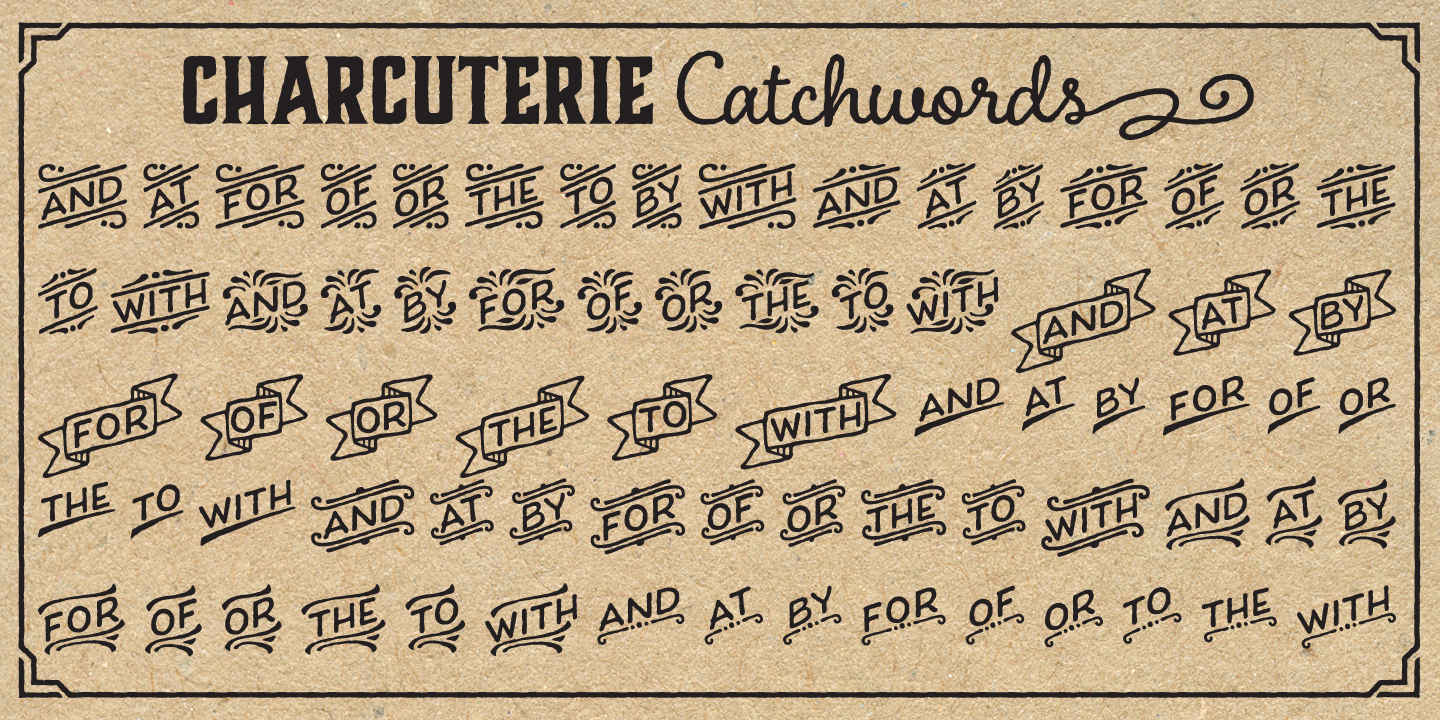
Charcuterie Catchwords
Charcuterie Catchwords is a dingbat font published by Laura Worthington.
A large and rare undertaking, Charcuterie is a family of ten distinct yet related typefaces, many of which have their own font families, and three decorative/ornamental typefaces.
While most of the Charcuterie typefaces are outfitted with a standard character set, Charcuterie Engraved features 135 swash alternates and Charcuterie Cursive boasts 275.
Charcuterie Frames offers a broad and endless approach to creating frames of any width, height and style.
Featuring 60 corner elements and 20 top, bottom and side pieces along with a detailed User’s Guide on how to construct the frames.
Charcuterie Catchwords features nine different styles for a total of 82 glyphs.
Charcuterie Ornaments is very practical and features 100 glyphs a vast array of arrows, brackets, rules, icons, ribbons and more.
This ambitious, yet accessible, set offers a virtually endless series of combinations, allowing each designer to form a tasty platter of ingredients, one that is uniquely theirs, for each project.
A large and rare undertaking, Charcuterie is a family of ten distinct yet related typefaces, many of which have their own font families, and three decorative/ornamental typefaces.